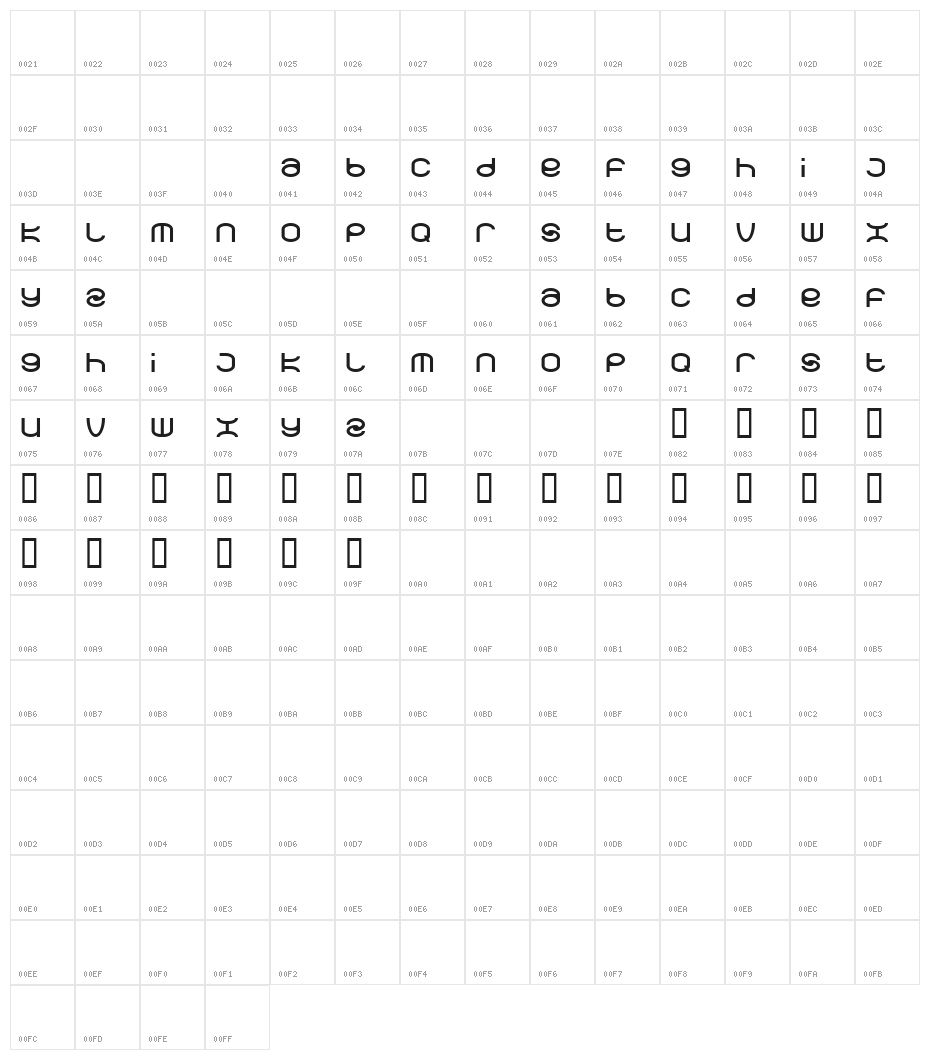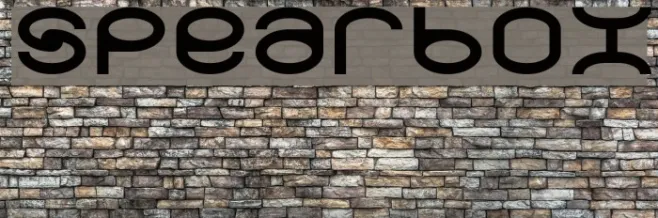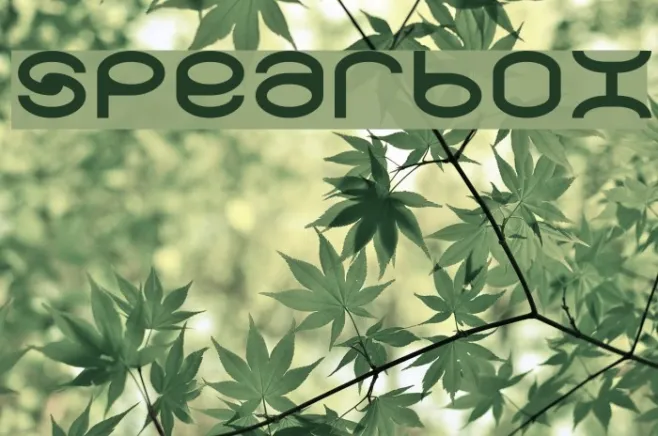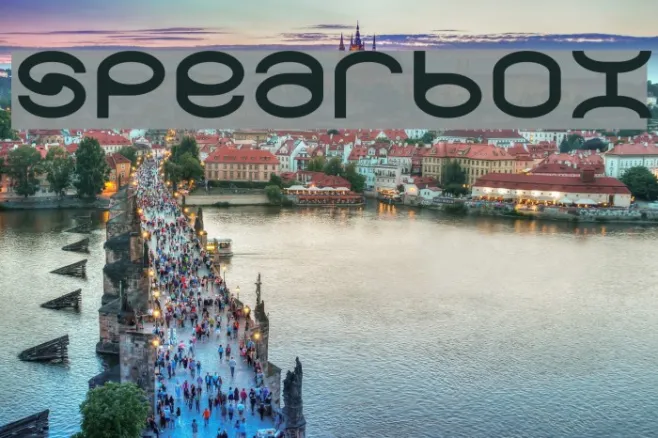
spearbox Font
spearbox Description
This font features a modern and futuristic design with smooth, rounded edges and a geometric structure. The characters are uniform in height, creating a cohesive and balanced appearance. The uppercase and lowercase letters share similar characteristics, with subtle variations in form. The font's unique style is evident in its curved lines and minimalistic approach, making it stand out in digital and print media. The numbers and special characters maintain the same aesthetic, ensuring consistency across all text elements. This font is ideal for projects that require a contemporary and sleek look.
| Proposed Projects | Ideal for tech branding, digital interfaces, modern advertising, and futuristic-themed designs. |